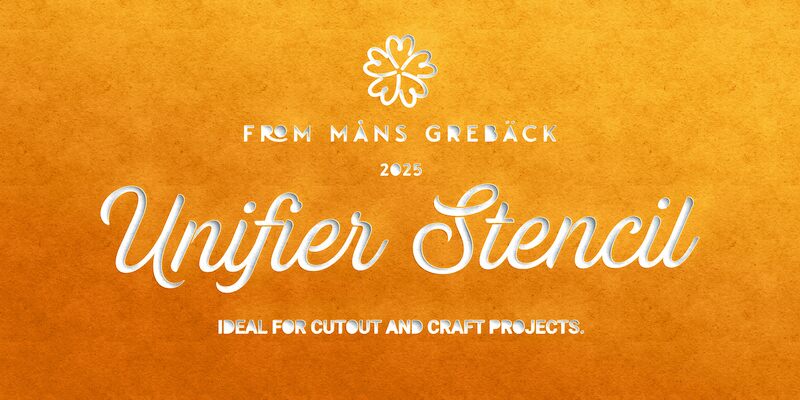
Unifier Stencil font from Mawns Greback is a free calligraphy font with elegant letters and a vintage-inspired design. It has an ornamental look with expressive ideas that can nicely complement professional design work. The font letters have flowing strokes, decorative finishing, and connected whitespaces that make it fit even for craft projects or cutout designs.
Unifier Stencil font has unlimited uses in logotypes, magazine covers, book covers, invitation cards, greeting cards, packaging labels, apparel tags, stationary prints and branding. It will be also nice if used for social media posts or website headers making them more readable with a stylish appearance.